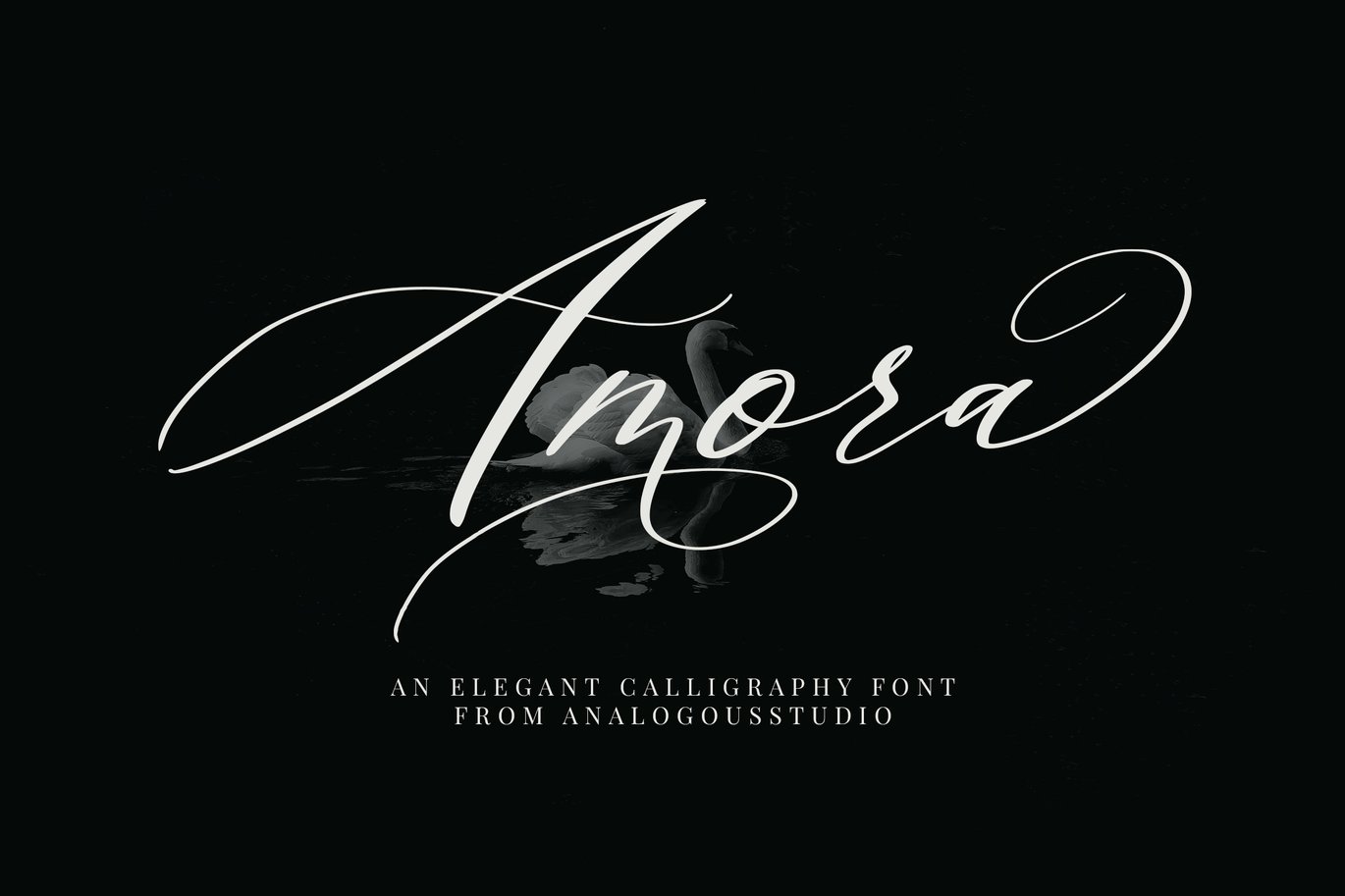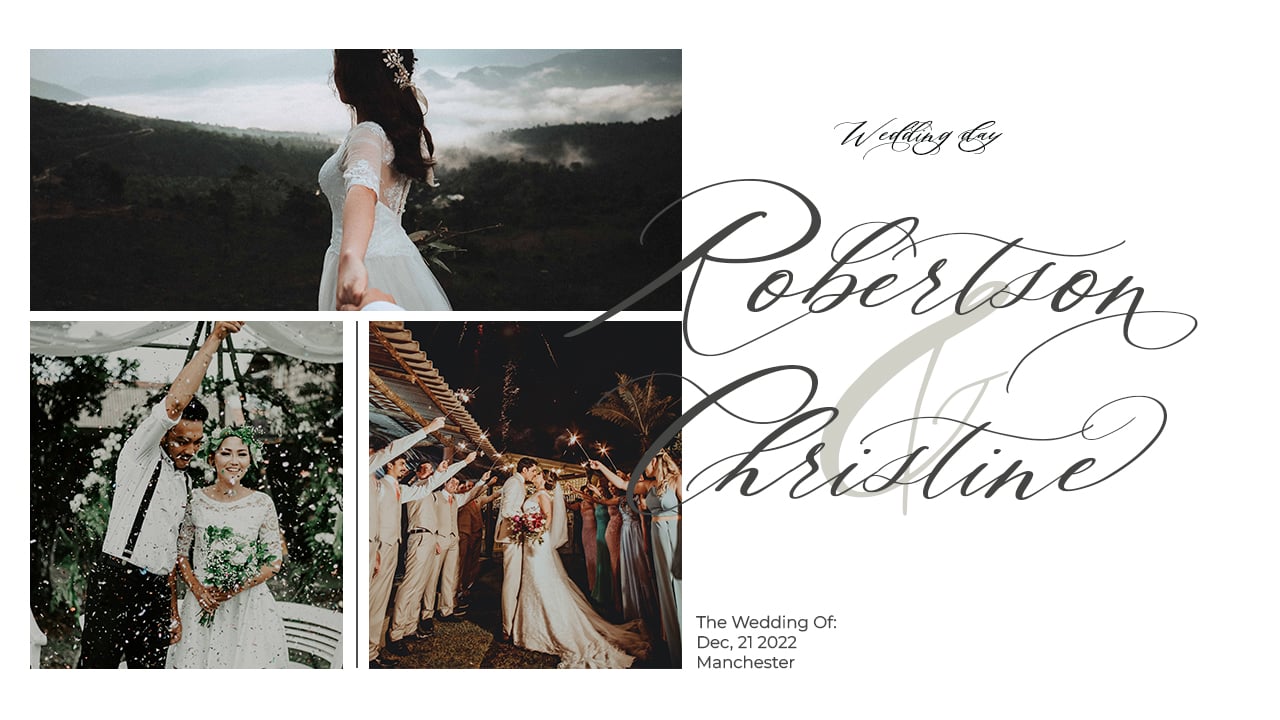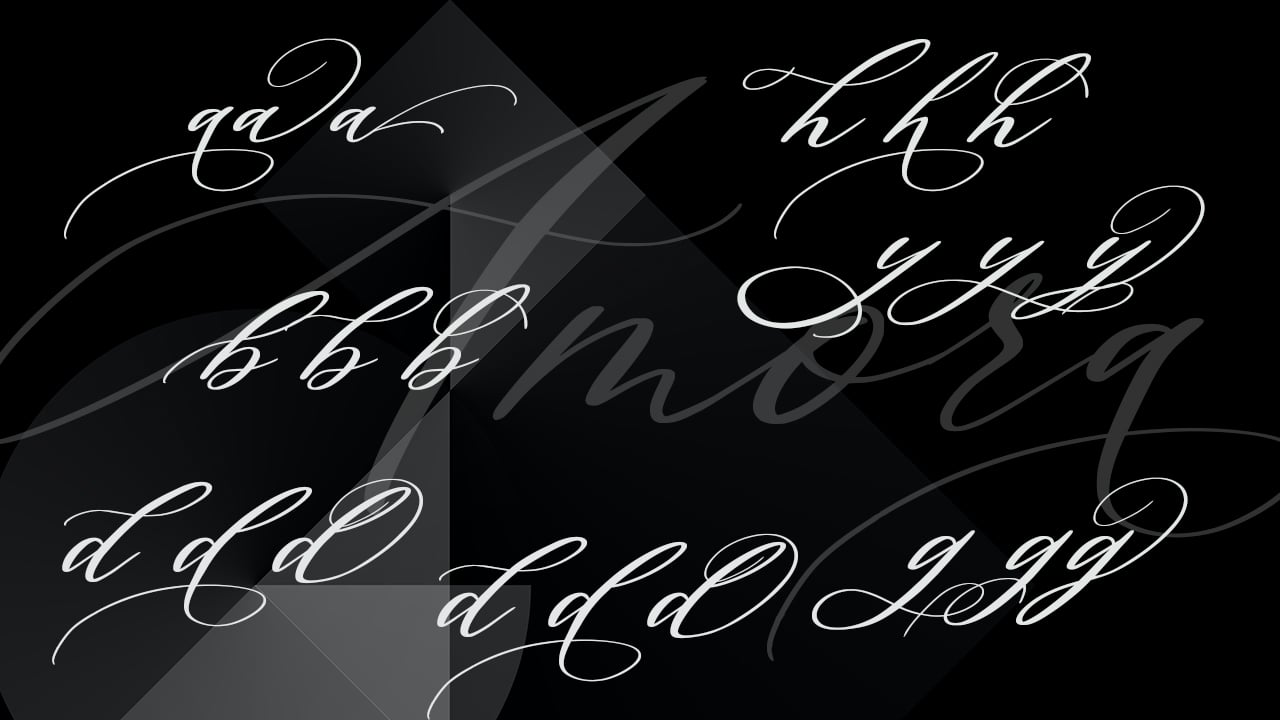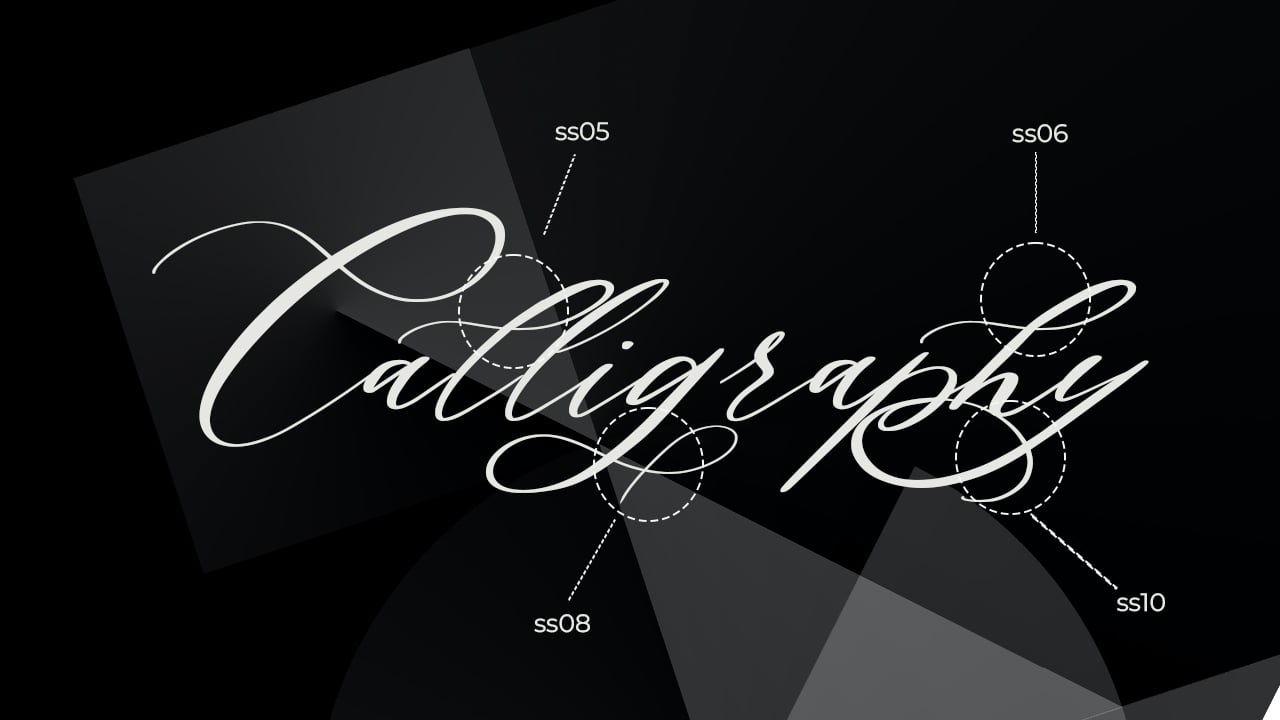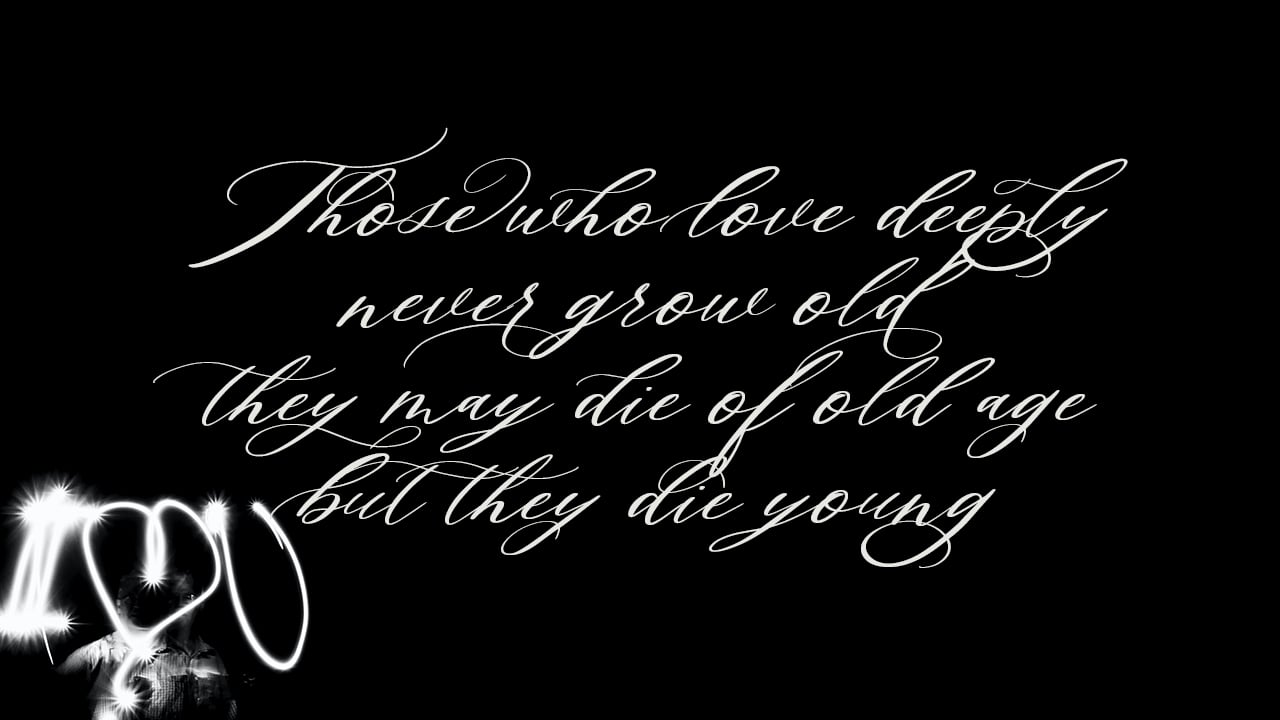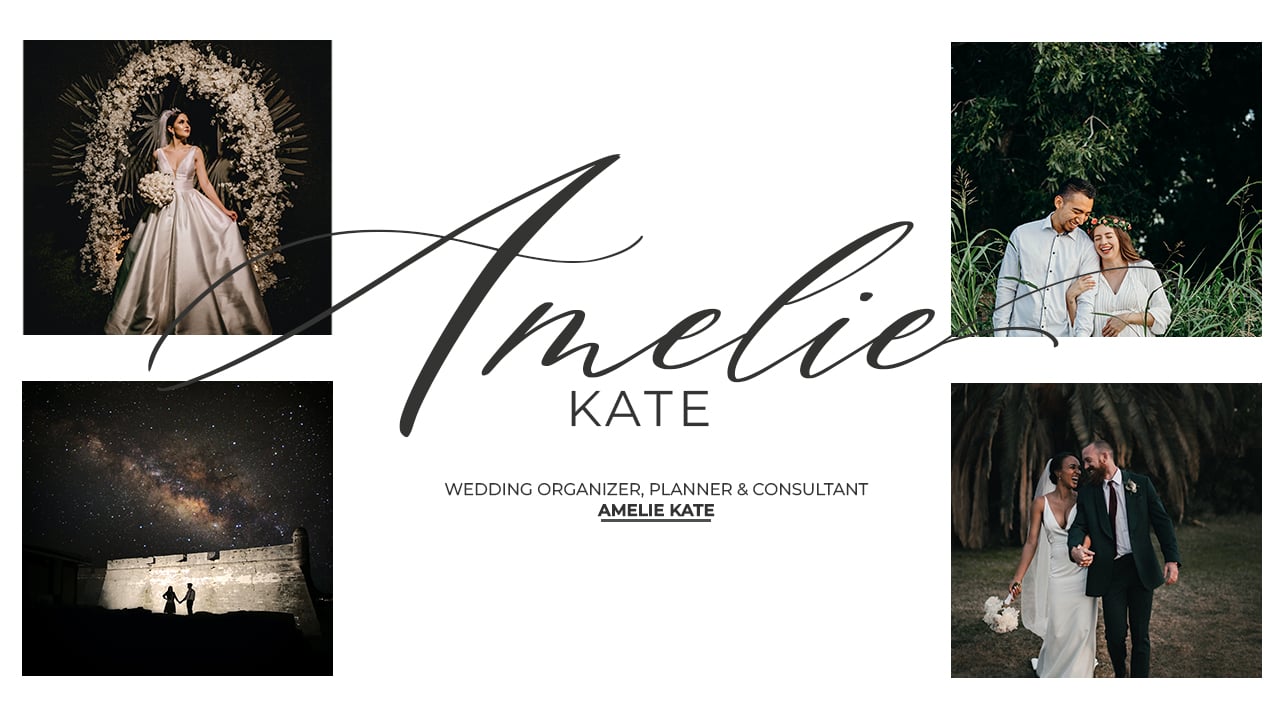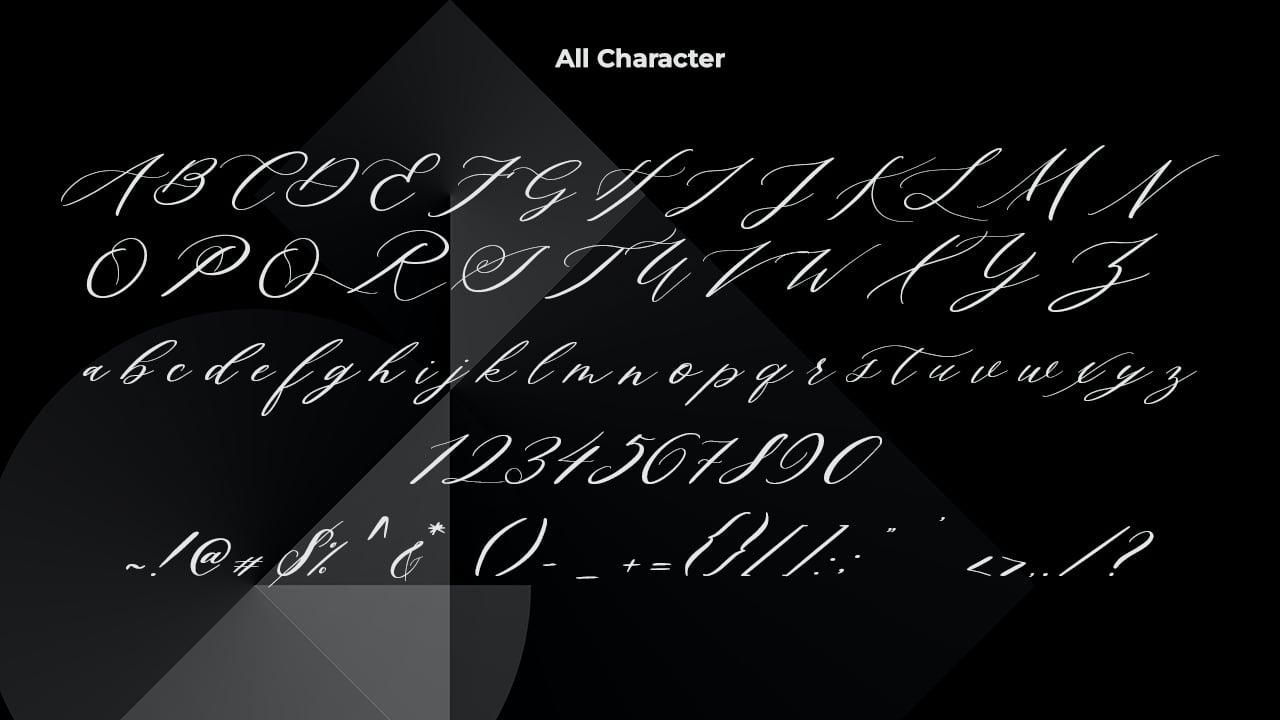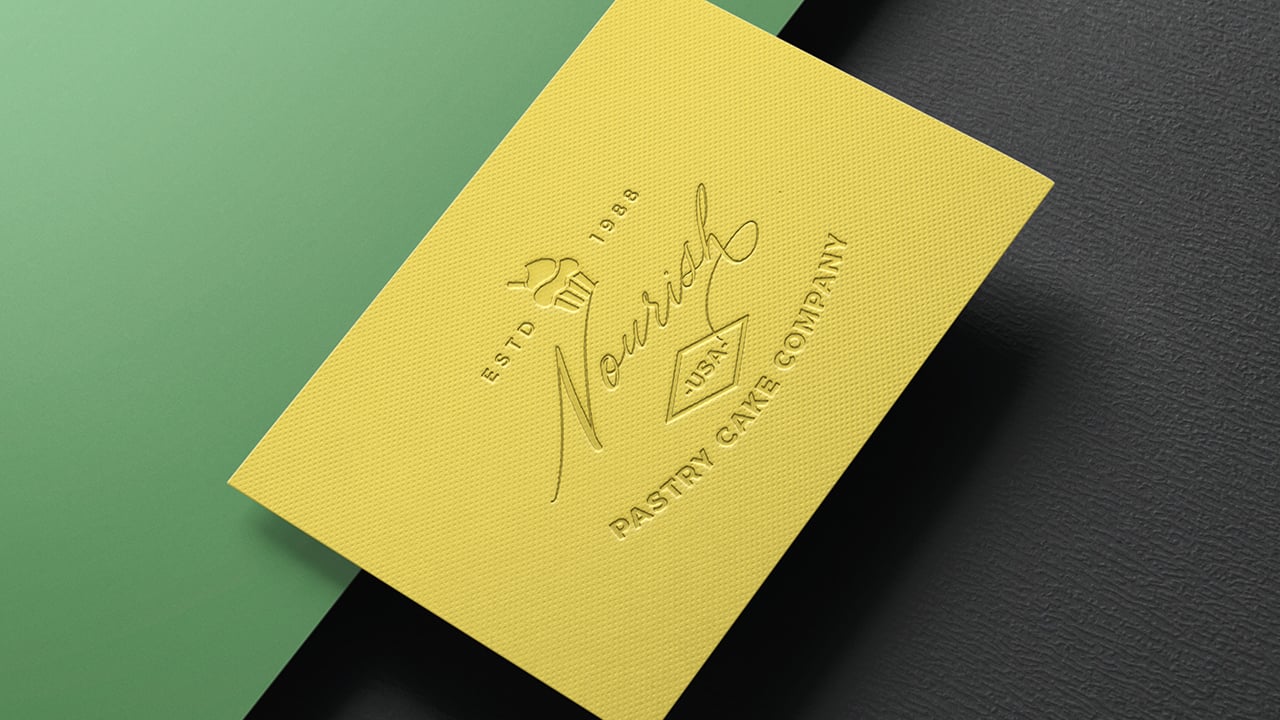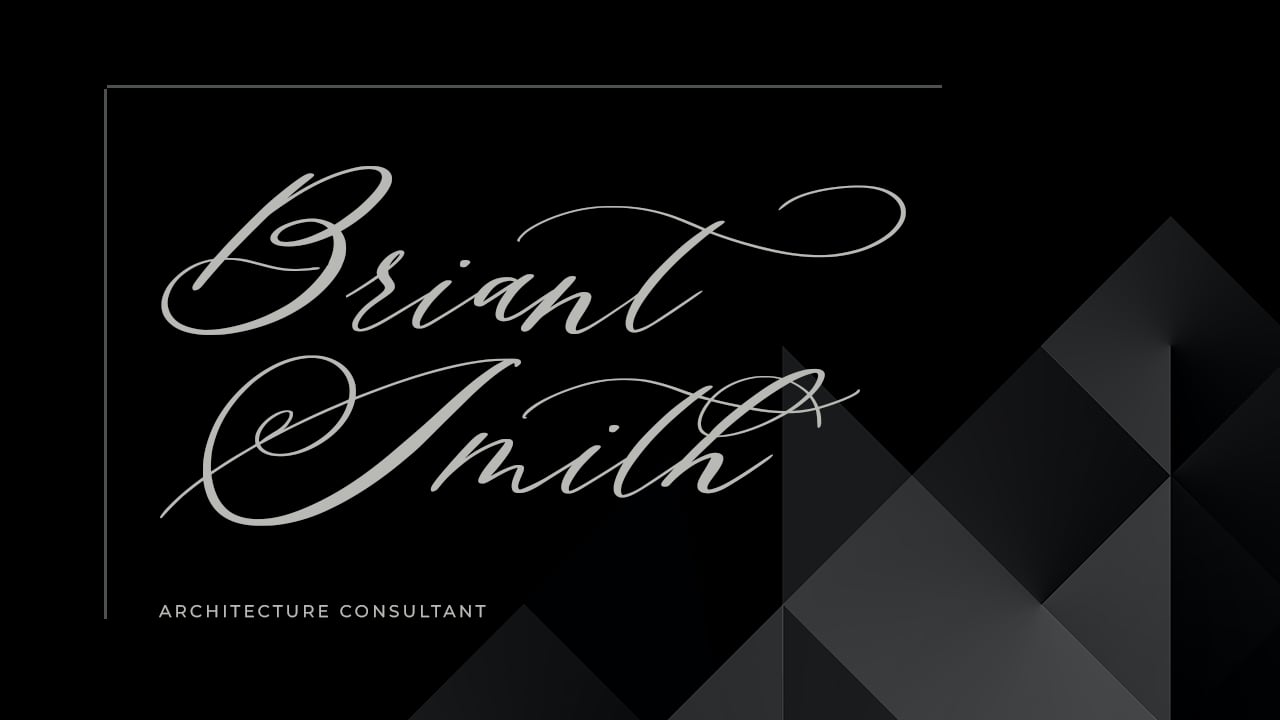
Amora Calligraphy Font
We introduce our new product called Amora Calligraphy Font
Amora Calligraphy Font is a Calligraphy Script font that you can use to make a design for logo branding, poster headline, magazines, book titles, business cards, beautiful fashion designs, advertisements, product designs, wedding invitation, signature or handwritten quote.